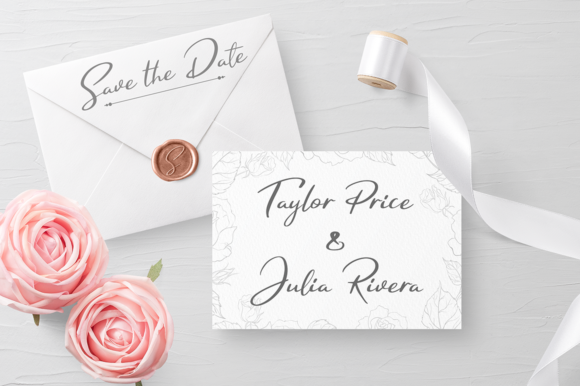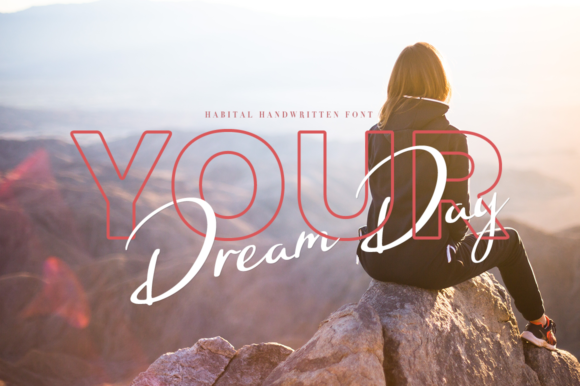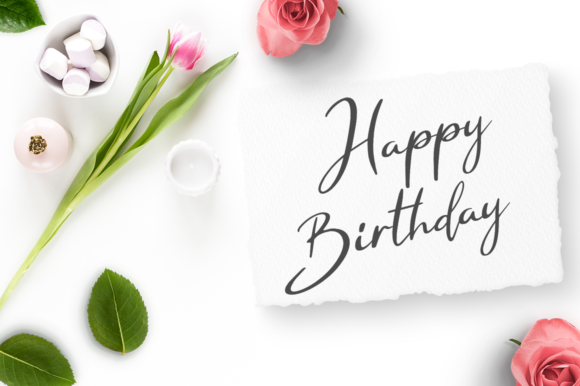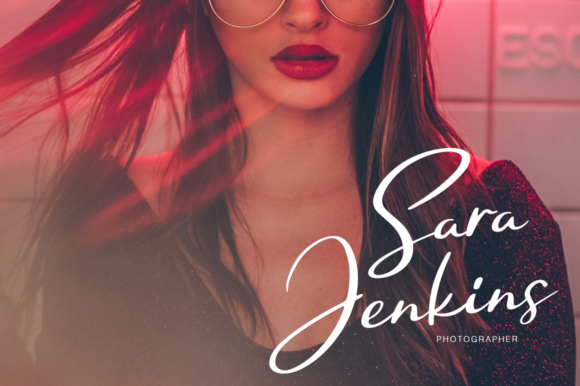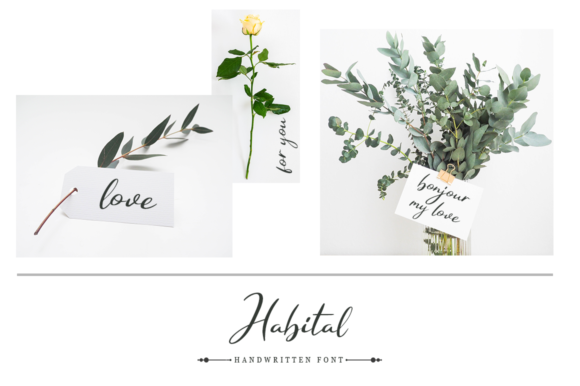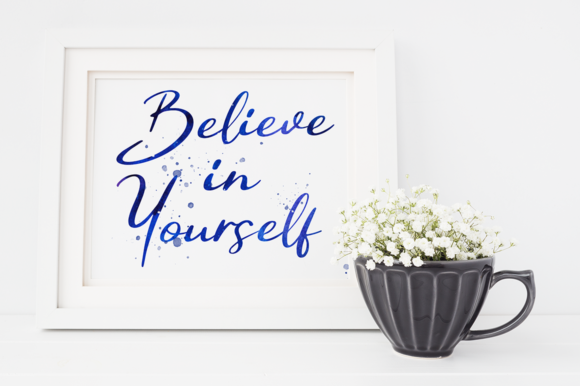
Habital Font
About Habital Font
Habital script is a new fresh handmade calligraphy font.
This font is ideal for branding and decorating projects. It’s perfect for wedding invitations, blogs, logos or as a beautiful frame for your home.